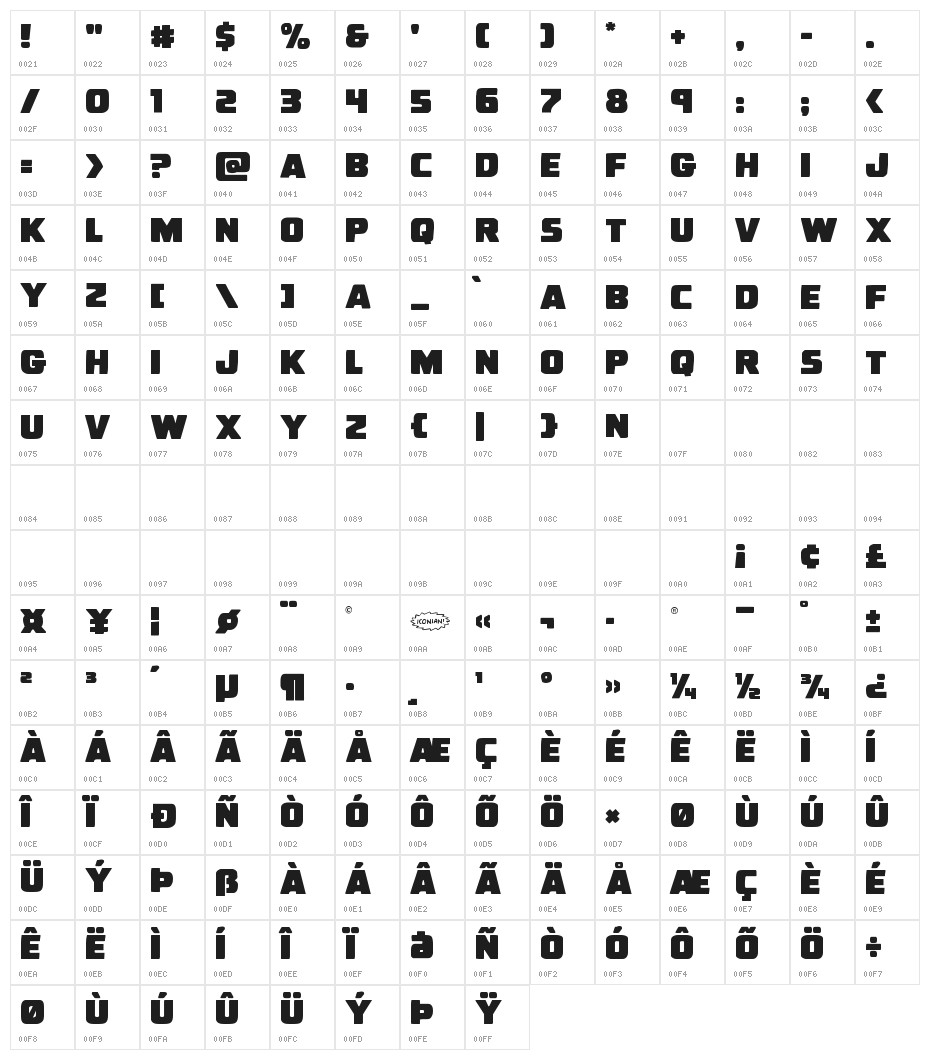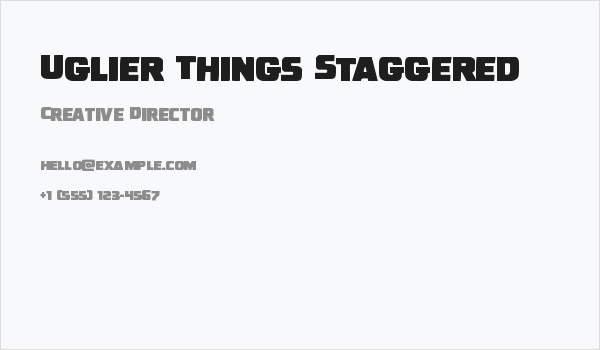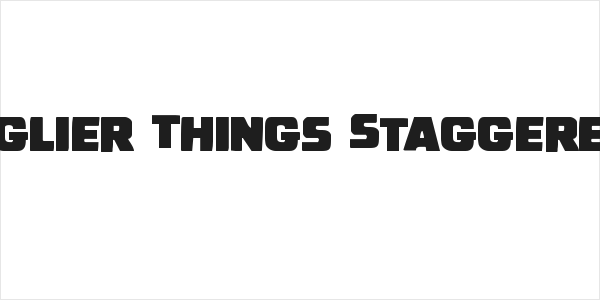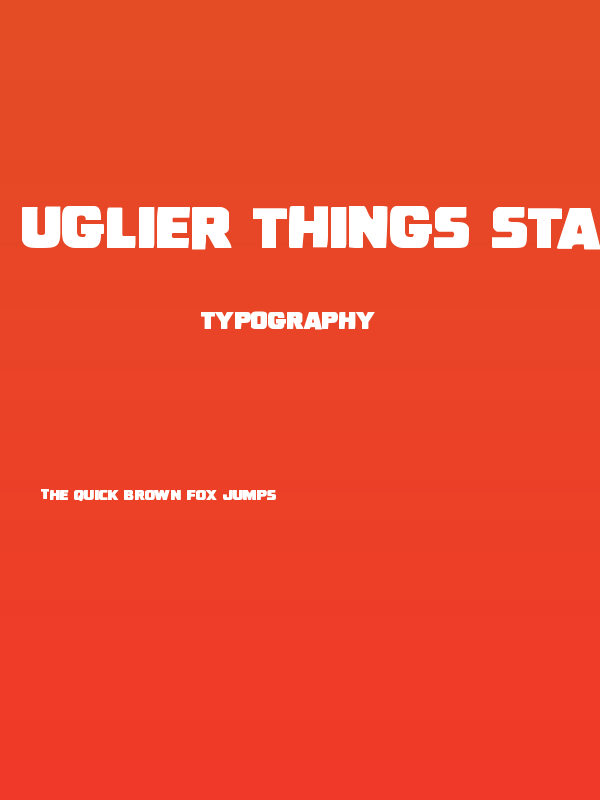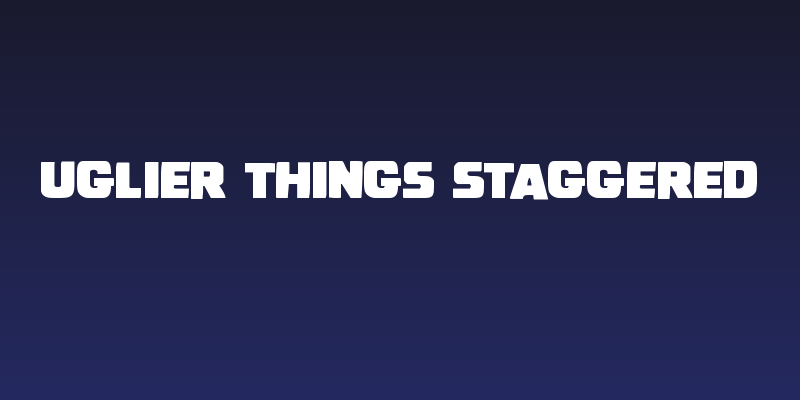
Uglier Things Staggered Font
Uglier Things Staggered Description
This bold and impactful font features thick, blocky characters with a slightly staggered appearance, giving it a unique and dynamic look. The uppercase letters are robust and commanding, while the numbers and special characters maintain the same strong presence. The font's design is consistent across all characters, with a slight inward curve on some edges that adds a subtle touch of playfulness. Its heavy weight and solid structure make it ideal for grabbing attention, making it perfect for headlines or titles that need to stand out.
| Proposed Projects | Ideal for poster designs, branding projects, and any creative work that requires a strong visual impact. |